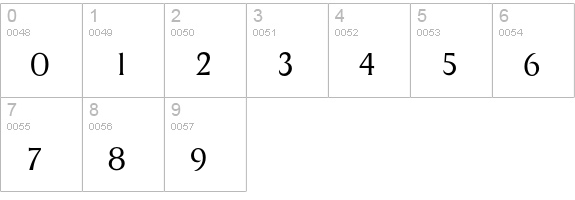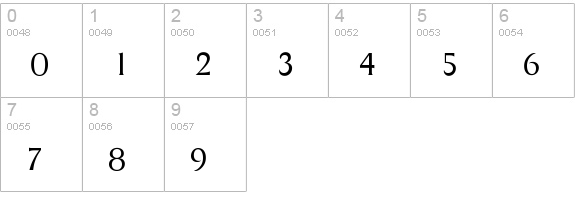
Dragon-Xlight Font Details
Dragon-Xlight font is a stunning and elegant typeface that exudes a sense of sophistication and creativity. With its sleek and modern design, this font is perfect for a wide range of design projects, from branding to editorial design. The Dragon-Xlight font features clean lines and sharp angles, giving it a unique and stylish appearance that is sure to make your text stand out. The best part about the Dragon-Xlight font is that it is completely free to download. That's right, you can easily access this beautiful font at FontsMarket.com without having to spend a dime. Whether you're a professional designer looking to add a new font to your collection or just someone who enjoys experimenting with different typefaces, the Dragon-Xlight font is a fantastic choice. So why wait? Download this amazing font today and take your designs to the next level.